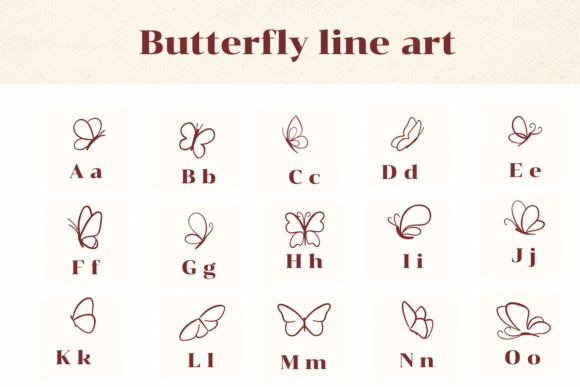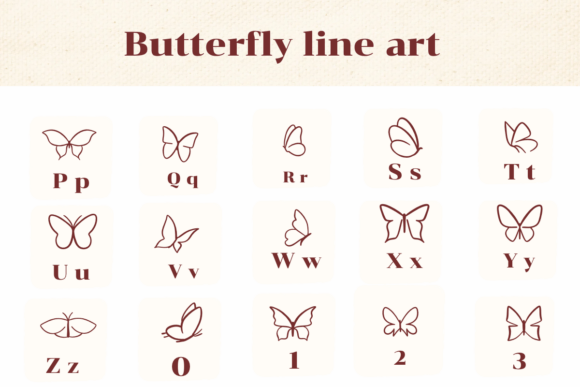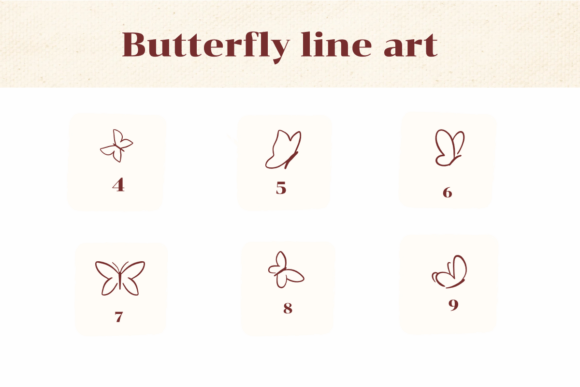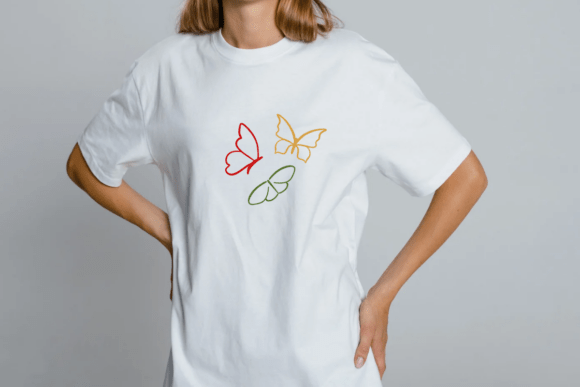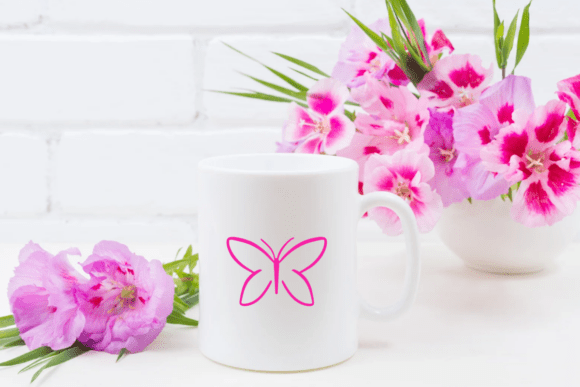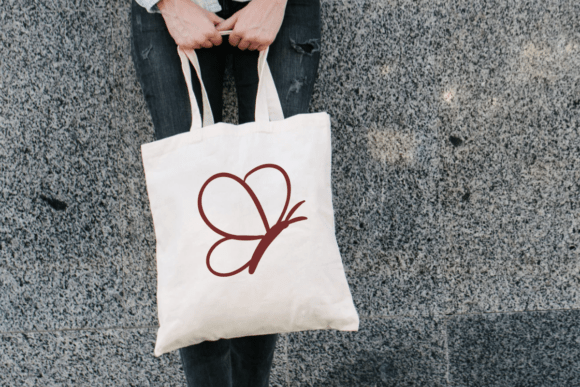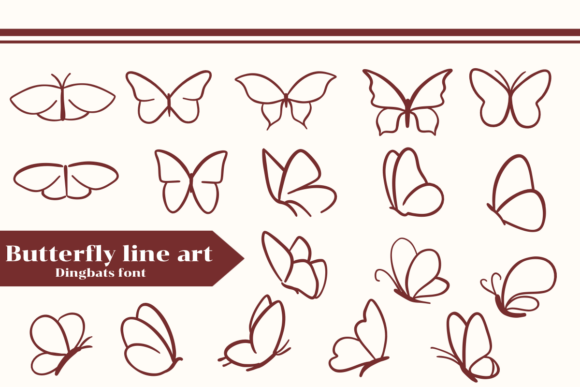
The Magic of Butterfly Line Art Font: Elevate Your Creative Projects
I’ll never forget the time I was working on a wedding invitation design for a dear friend. I had the perfect concept, the colors were on point, and the graphics were aligned just right. But something was missing – the right font. I scoured the internet, tried out a dozen different fonts, but none seemed to capture the whimsical, romantic feel I was going for. That’s when I stumbled upon Butterfly Line Art Font, and it was love at first sight! 💕
- Unique, hand-sketched design that adds a touch of elegance and playfulness to any project ✅
- Perfect for creative projects like wedding invitations, DIY crafts, decorations, logos, and more 🎨
- Easy to use and pairs well with a variety of other fonts and design elements 📚
- The dingbats style offers a wide range of creative possibilities 🌟
- Some characters may not work well in very small sizes ⚠️
- Limited use in very formal or traditional designs, as it’s more suited to creative and playful projects 📝
The Story Behind Butterfly Line Art Font
The creator of Butterfly Line Art Font, a talented designer with a passion for hand-drawn art, was inspired by the delicate beauty of butterflies and the elegance of line art. With a background in illustration and a love for typography, they aimed to create a font that would bring a touch of whimsy and romance to any project. The result is a font that not only looks beautiful but also tells a story of creativity and passion.
Q: What type of projects is Butterfly Line Art Font best suited for?
A: Butterfly Line Art Font is perfect for creative projects like wedding invitations, DIY crafts, decorations, logos, and more.
Q: Does Butterfly Line Art Font support OpenType features?
A: Yes, Butterfly Line Art Font supports OpenType features, allowing you to access a range of glyphs and stylistic alternates to enhance your designs.